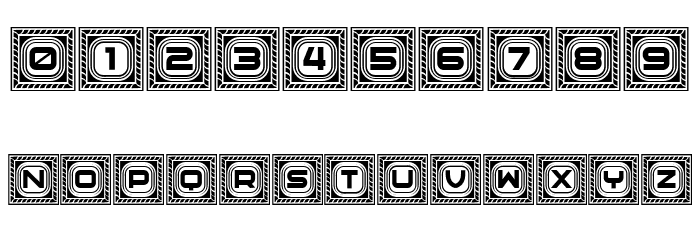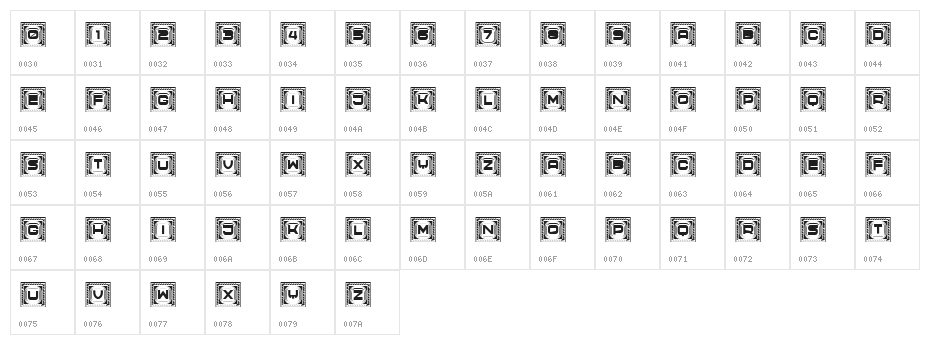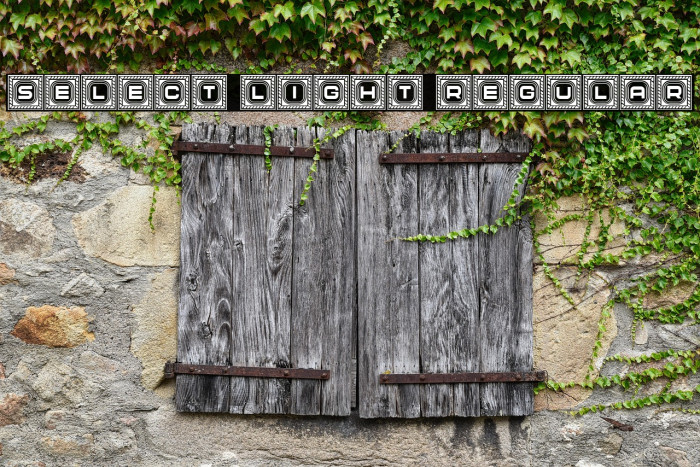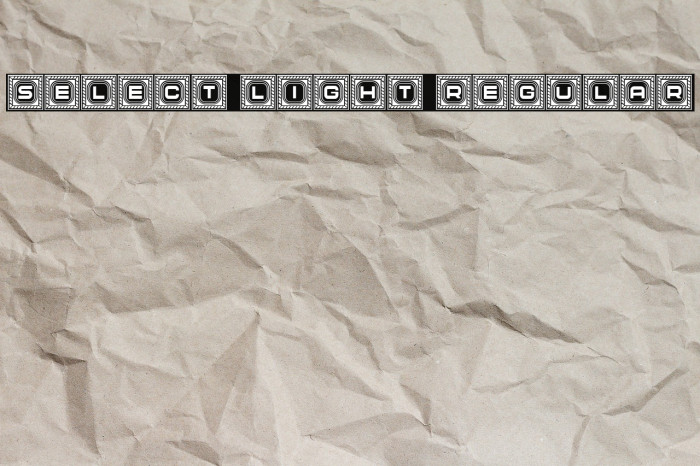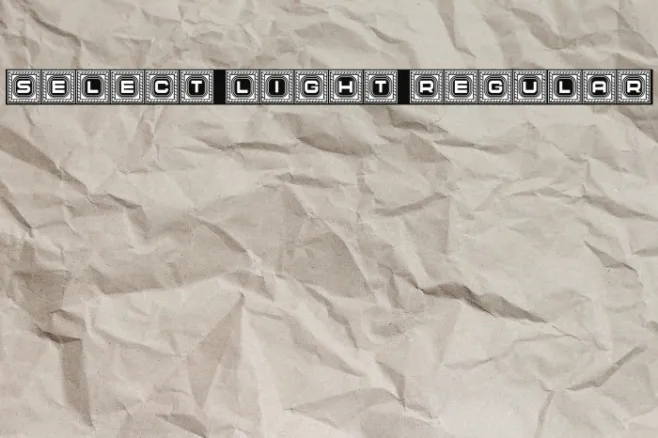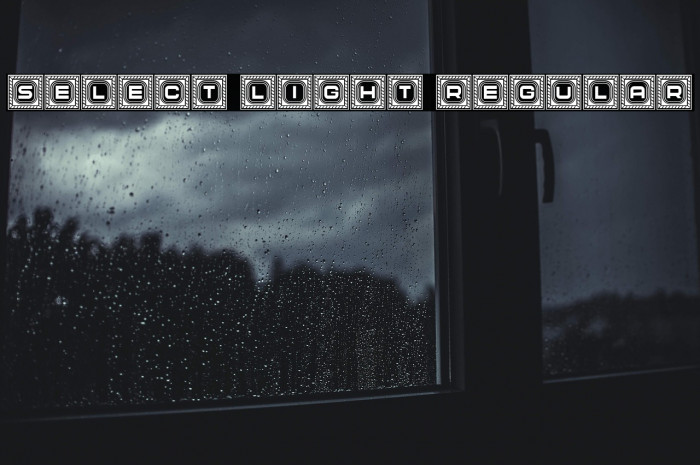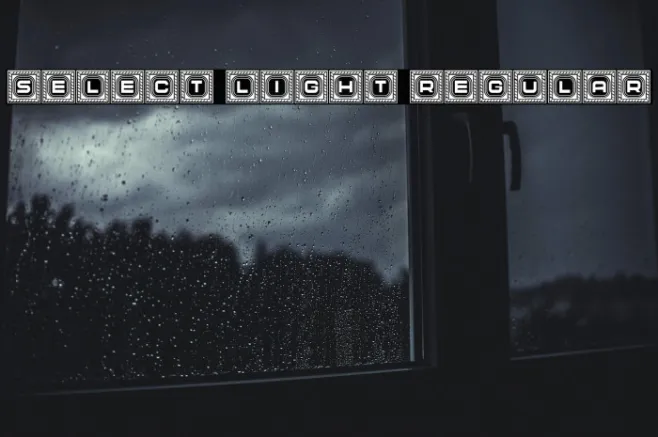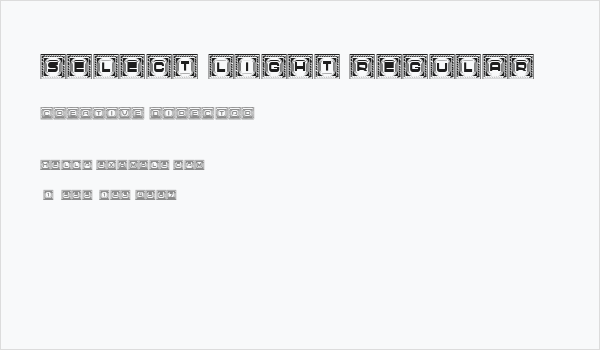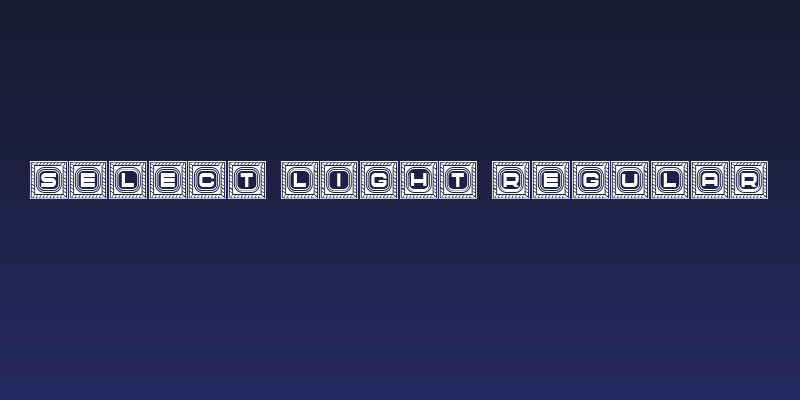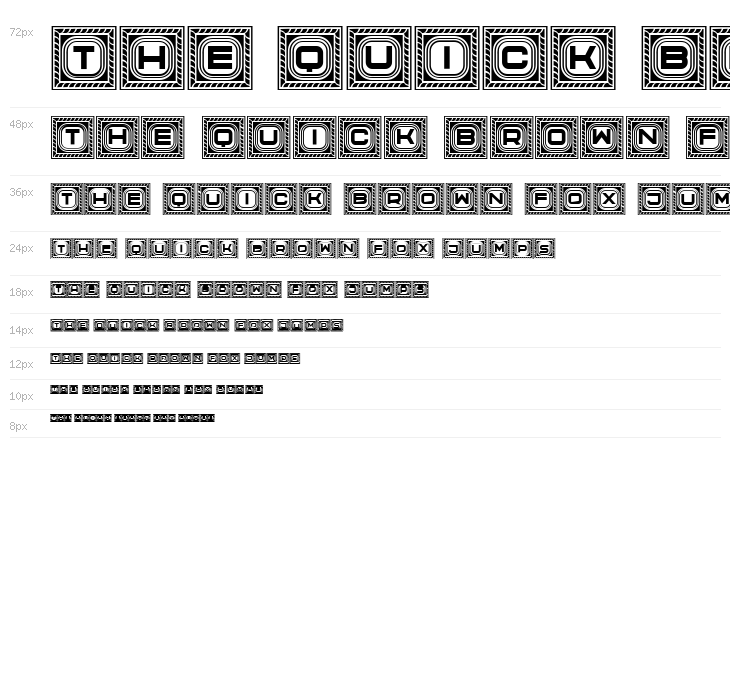
Select Light Regular Font
Select Light Regular Description
This font features a bold, decorative style with each character enclosed in a square frame. The letters and numbers are presented in a blocky, geometric form, with a high contrast between the thick strokes of the characters and the thin lines of the frame. The design includes a striped pattern within the frame, adding a unique, eye-catching element. The font's overall appearance is modern and playful, making it suitable for creative and artistic projects. The characters are evenly spaced within their frames, ensuring a consistent and structured look.
| Proposed Projects | Ideal for posters, album covers, and branding materials that require a bold, artistic touch. |